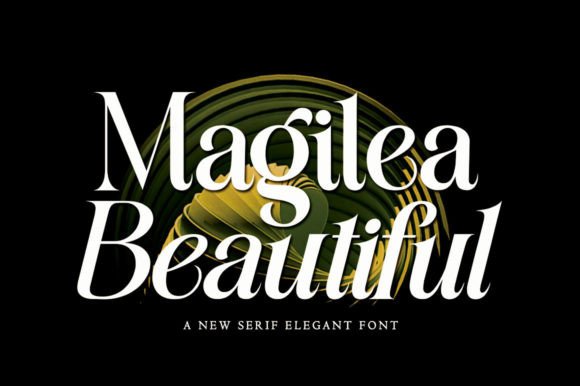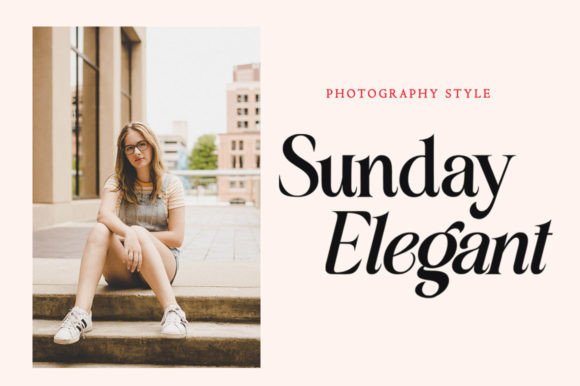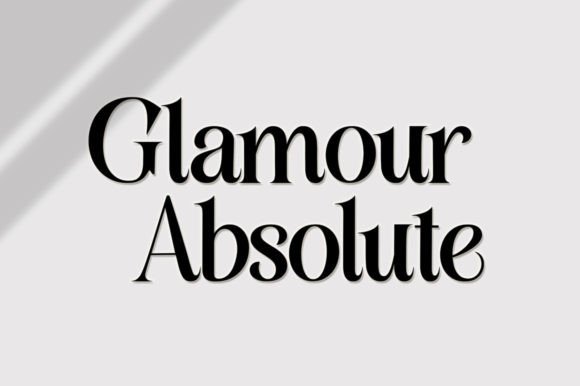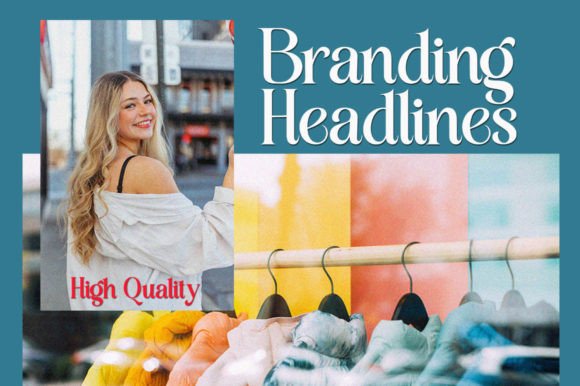
Maligea Beautiful Font
About the Maligea Beautiful Font
Let us introduce you to Maligea Beautiful Font, where timeless design meets modern craftsmanship. Maligea Beautiful is my new elegant serif font that will give your projects a touch of luxury and style. It’s perfect for logotypes, branding, monograms and wedding invitations, blog headlines, and more. Browse through all the previews and get inspired.
Maligea’s elegant serif forms shine in headlines, branding applications, and short text blocks like invitations or signage. Its refined character lends itself well to luxury goods, sophisticated brands, and projects requiring a touch of classic charm. Avoid using it for lengthy body text or UI elements; its refined strokes are less legible at smaller sizes.
Pairing Maligea with a clean sans-serif like Helvetica Neue for body copy provides excellent contrast and readability. For a more playful feel, consider a rounded sans-serif such as Circular Std. If a more decorative approach is desired, a delicate script font could complement its elegance, but use it sparingly.
Maligea projects an air of sophistication and timeless elegance. Its overall personality is refined and understated, making it ideal for brands emphasizing quality, heritage, or a sense of understated luxury.
Maligea Beautiful Font Usage Examples
Maligea Beautiful Font Example